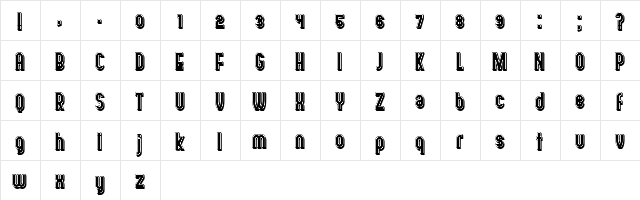
Mundo Regular Font Preview
Mundo Regular
Design Context for Mundo Typeface
Mundo is a composed and adaptable typeface that performs quietly and consistently across a wide range of design contexts.